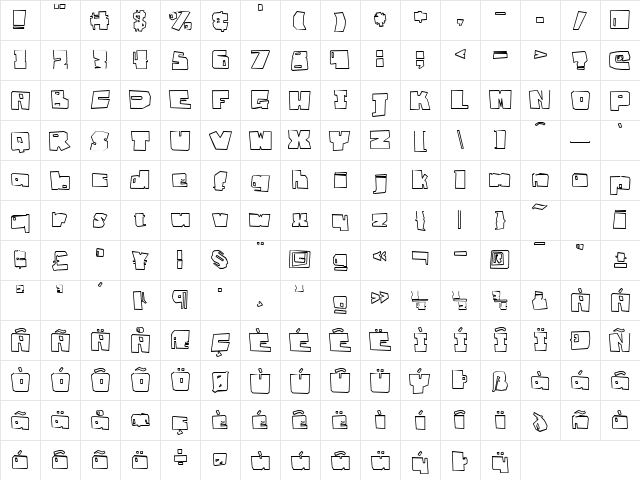
Badger Fatboy Outline Regular
Design Context for Badger Fatboy Outline Typeface
Badger Fatboy Outline brings ornamental detail and strong personality to headlines and identities, where visual impact matters more than quiet functionality.
Font Pairing: Pair with a clean neutral sans-serif for body copy to let Badger Fatboy Outline's character lead without overwhelming the composition.
Pro Tip: Treat Badger Fatboy Outline as the centrepiece of your typographic hierarchy. One strong heading set in a decorative face can carry an entire layout.